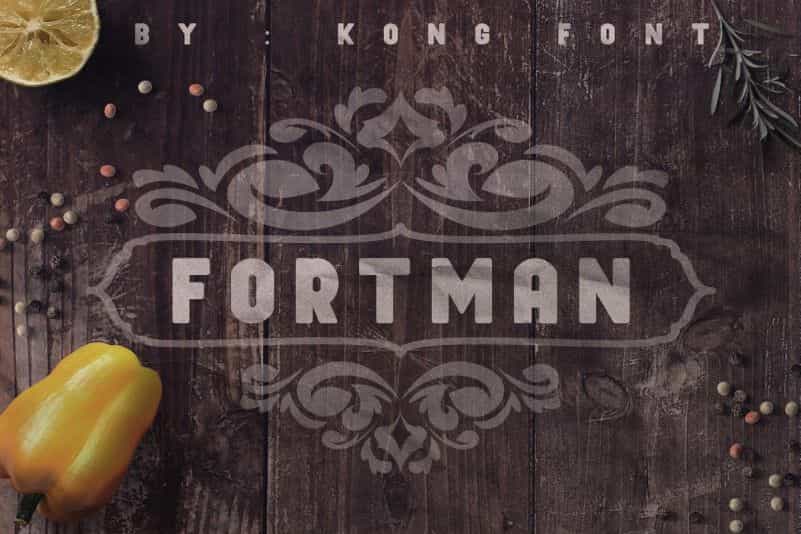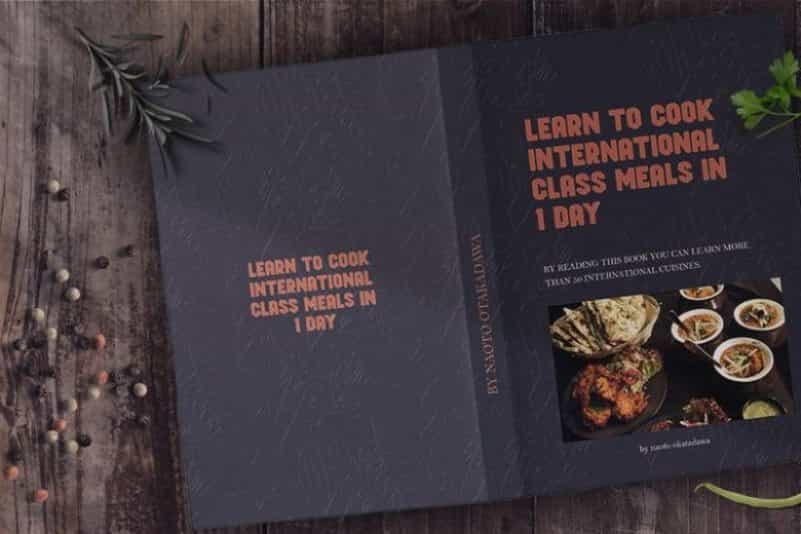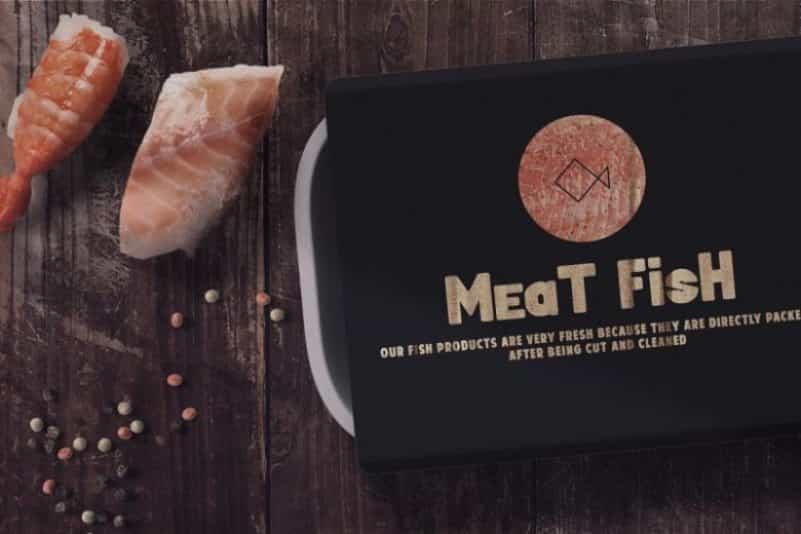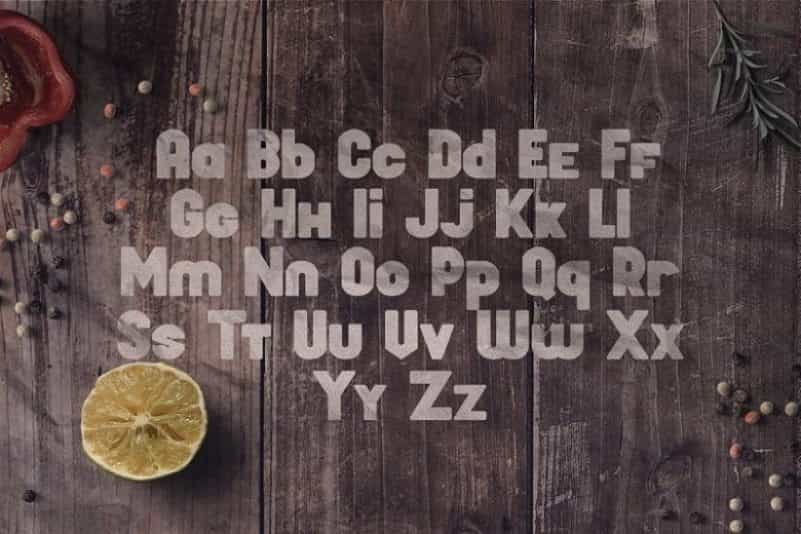
Fortman Font is a Typeface that will soon become your favorite. It is distinctive and at the same time, indistinctive look will make Fortman a workhorse Sans Serif that you will always use in different projects. This font will be your great protection for the loud poster, social media content, album artwork, 90’s vibes design and branding.